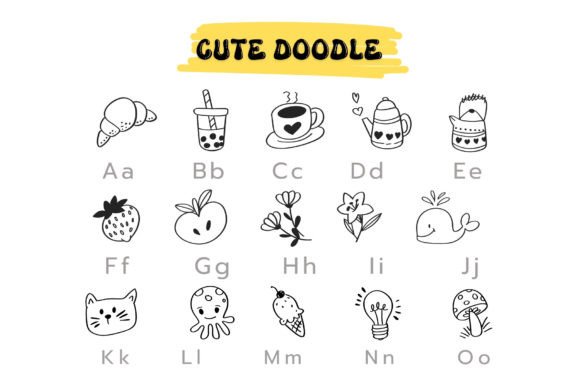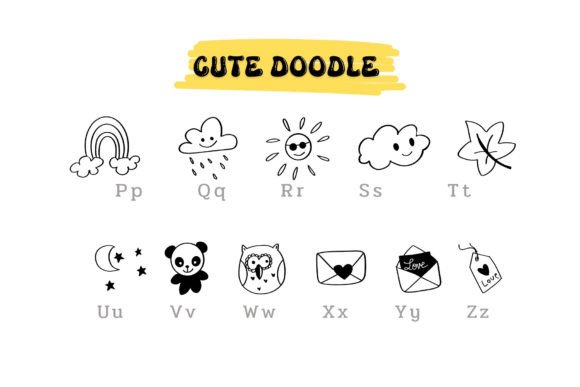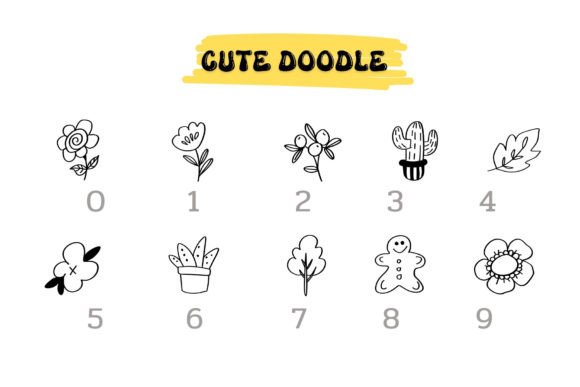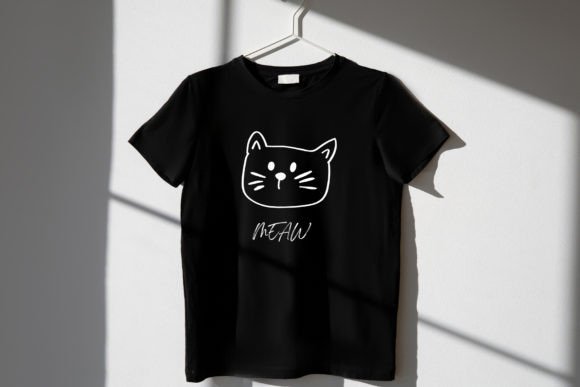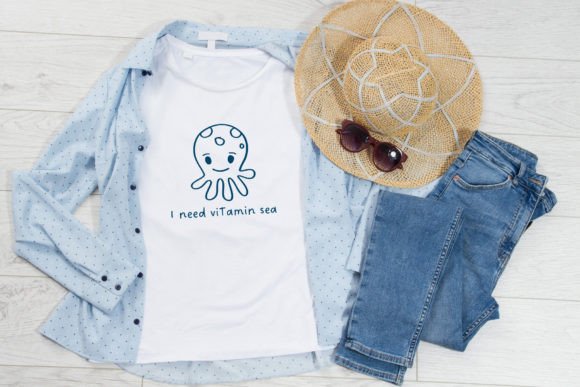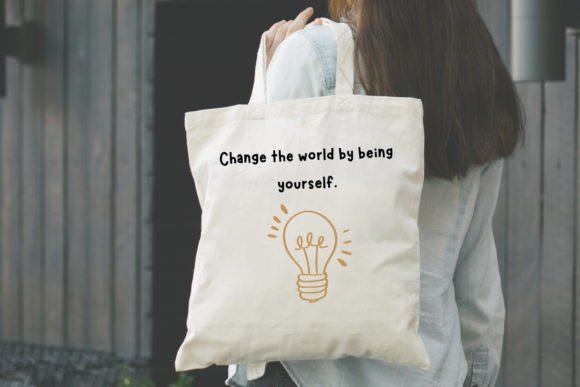
Cute Doodle Font: Add a Touch of Whimsy to Your Designs
Are you looking for a font that can add a playful and charming touch to your designs? Look no further than the Cute Doodle font! This fun and playful dingbat font is filled with adorable icons like hearts, butterflies, flowers, and other cute shapes that are perfect for designers, crafters, and anyone who loves to add a bit of whimsy to their projects.
What is Cute Doodle Font?
Cute Doodle is a unique and creative font that features a wide range of charming designs. It’s a dingbat font, which means it’s made up of symbols and icons rather than traditional letters and numbers. This font is perfect for adding a touch of personality to your designs, and it’s ideal for projects that require a playful and fun approach.
Features of Cute Doodle Font
The Cute Doodle font features a wide range of adorable icons, including:
- Hearts: perfect for Valentine’s Day or love-themed designs
- Butterflies: add a touch of whimsy and freedom to your designs
- Flowers: beautiful and delicate, perfect for spring or garden-themed designs
- Other cute shapes: stars, moons, clouds, and more!
These icons can be used to add a touch of personality to your designs, and they’re perfect for a wide range of projects, from greeting cards and invitations to social media graphics and blog posts.
Benefits of Using Cute Doodle Font
There are many benefits to using the Cute Doodle font in your designs. Here are just a few:
- Add a touch of whimsy: the Cute Doodle font is perfect for adding a playful and fun touch to your designs
- Unique and creative: this font is sure to make your designs stand out from the crowd
Project Ideas for Cute Doodle Font
The Cute Doodle font is perfect for a wide range of projects, including:
- Digital art and illustrations
- Printables and planners
You can use the Cute Doodle font to add a touch of personality to your projects, and it’s perfect for anyone who loves to create unique and creative designs.
The Cute Doodle font is a fun and playful dingbat font that’s perfect for adding a touch of whimsy to your designs. With its wide range of adorable icons, this font is sure to make your designs stand out from the crowd. Whether you’re a designer, crafter, or just someone who loves to create, the Cute Doodle font is a great addition to your font collection.